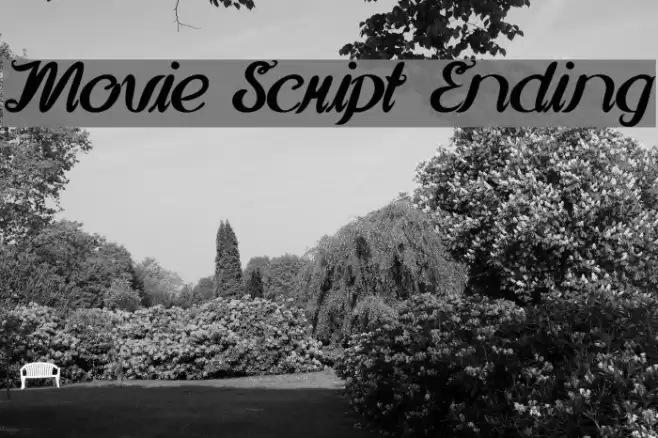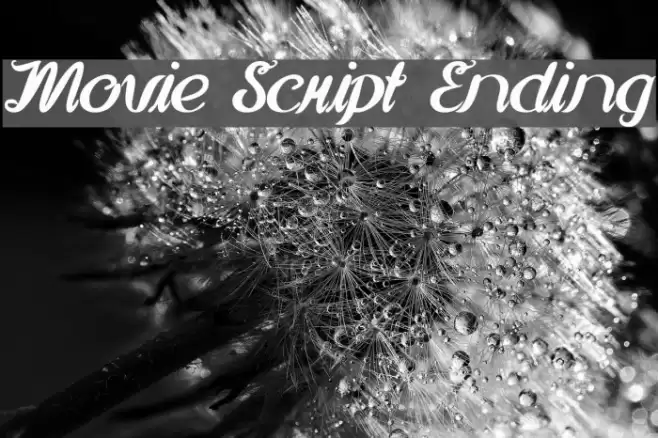
Movie Script Ending Font
Movie Script Ending Description
This font features an elegant and flowing script style, characterized by its ornate and decorative swashes. The letters are interconnected, creating a seamless and fluid appearance. The uppercase letters are particularly elaborate, with intricate curls and loops that add a touch of sophistication. The lowercase letters maintain a consistent style, complementing the uppercase with their own subtle flourishes. This font exudes a sense of classic elegance and is reminiscent of traditional calligraphy, making it suitable for formal and decorative applications.
An elegant script font with ornate swashes and flowing interconnected letters from Uncategorized fonts.
- Proposed Projects: Ideal for wedding invitations, formal event programs, elegant branding, and decorative headings.
- Character Spacing: Tight
- Overall Style: Classic
- Use Case: Headlines, Invitations, Decorative text